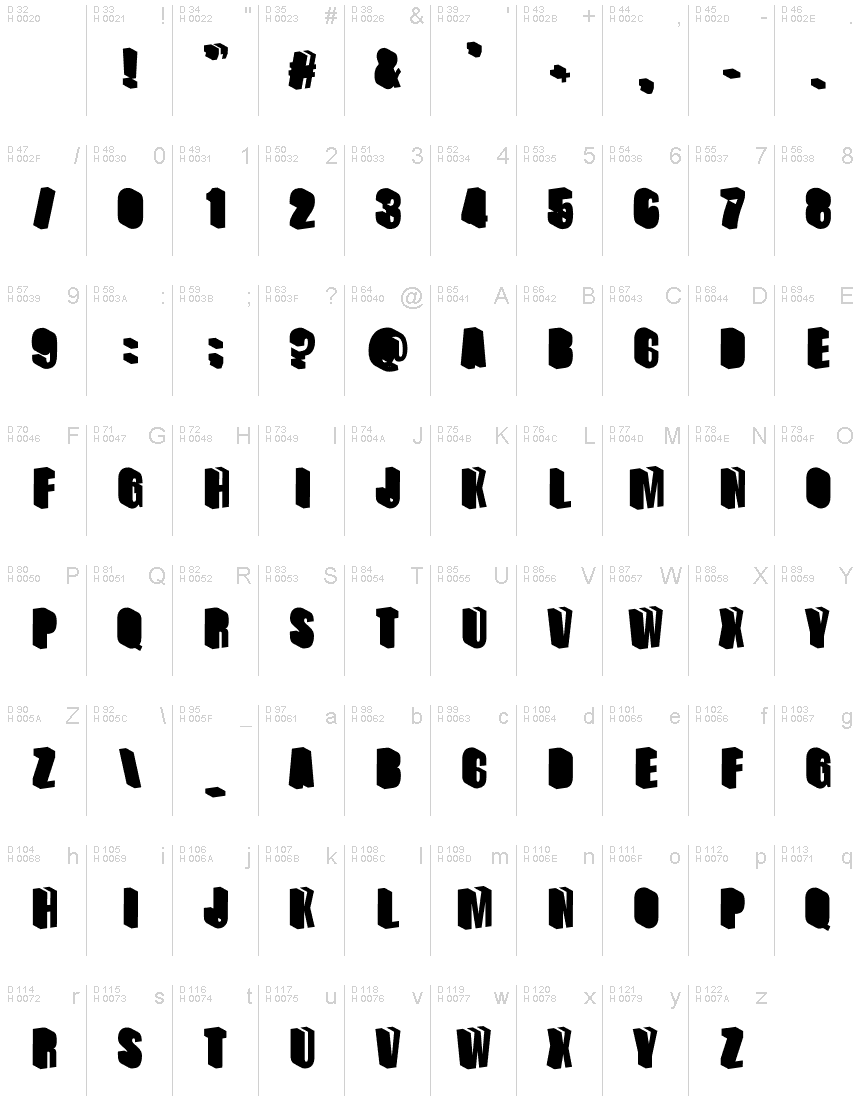
Discrdive 3D
Discrdive 3D is an eye-catching font designed by Vladimir Carrer. With its bold and condensed style, this display typeface is perfect for projects that require a strong and impactful visual presence. The 3D effect adds depth and dimension to any design, making it a great choice for logos, headlines, posters, and other marketing materials. Whether you're branding a new product or revamping an existing one, Discrdive 3D will make your message stand out from the crowd. Its unique style lends itself well to gaming graphics, futuristic designs or any project that requires a bold statement with a modern twist.